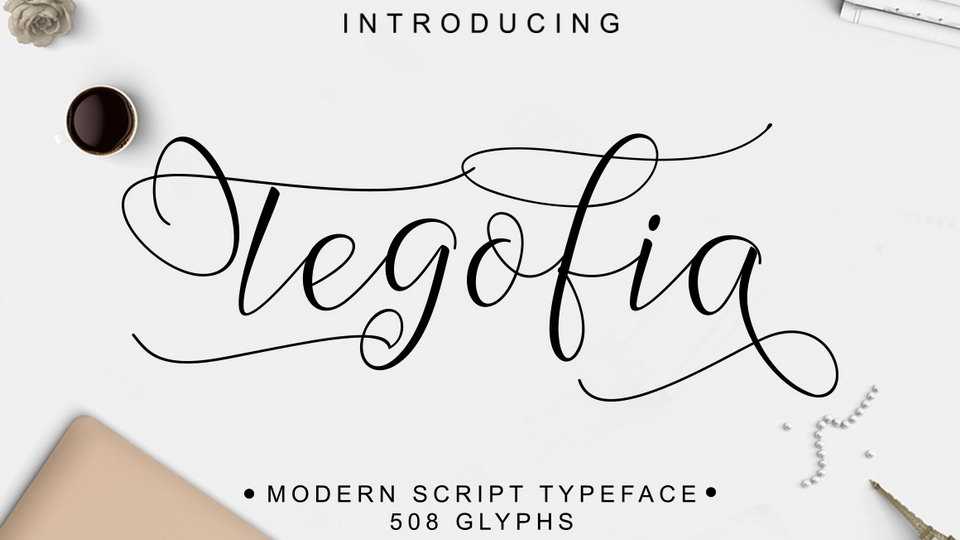
Download Tegofia Script, a decorative handwritten font with amazingly flowing lines, that looks well for cards, letters, wedding graphics, social media, fashion and other beautiful designs.